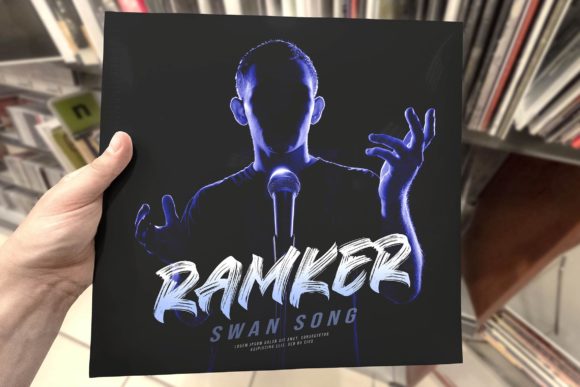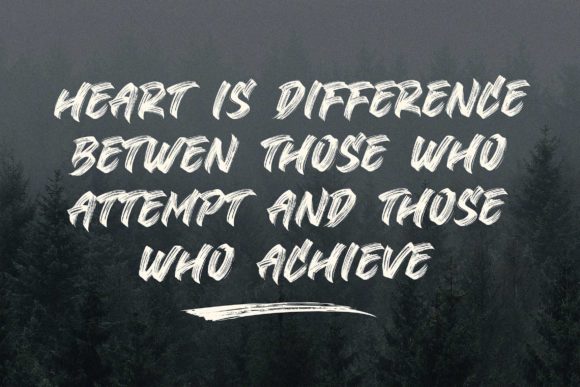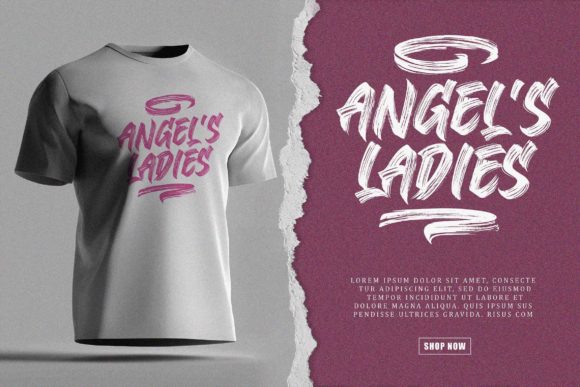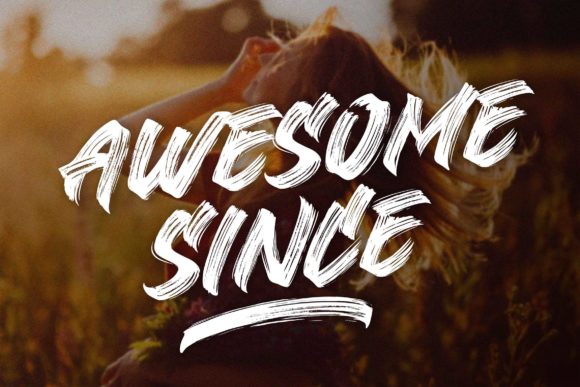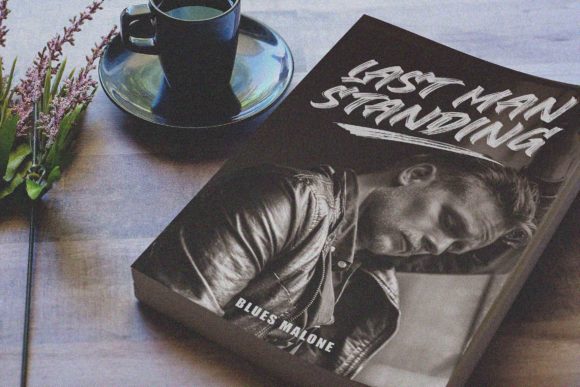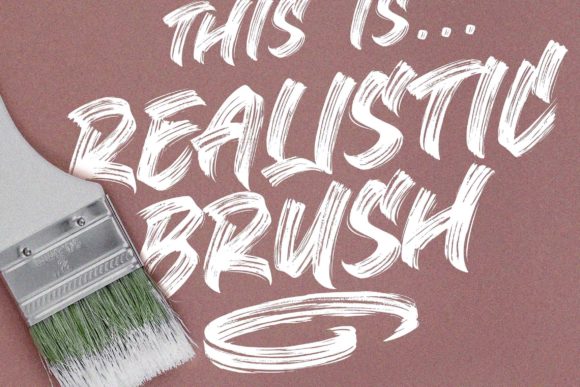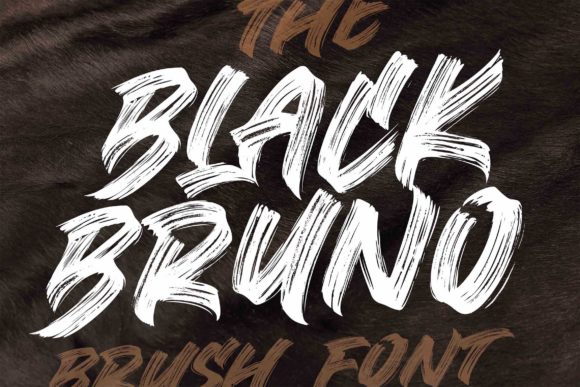
The Magic of Black Bruno Font: A Designer’s New Best Friend
I’ll never forget the moment I stumbled upon the Black Bruno font. I was working on a DIY project for a client, and I was struggling to find the perfect display font that would bring the whole design together. The project was a handmade craft tutorial, and I wanted a font that would not only look great but also feel authentic and endearing. That’s when I discovered Black Bruno, and it was love at first sight! 💕
So, what makes Black Bruno so special? Here are a few things that I absolutely love about this font:
- ✨ Unique and authentic look: Black Bruno results from a stunning pairing of a brush pen and pencil, making it look incredibly endearing and authentic.
- ✅ Highly versatile: This font is perfect for a wide range of DIY projects, from handmade craft tutorials to social media graphics and more.
- 💫 OpenType features: Black Bruno comes with a range of OpenType features, including glyphs and stylistic alternates, that allow you to customize your text and make it truly unique.
Of course, no font is perfect, and there are a few small quirks to watch out for:
- ⚠️ Limited character set: Black Bruno has a slightly limited character set, which can make it tricky to use for longer blocks of text.
- 🤔 Kerning issues: As with any font, you may need to adjust the kerning to get the text looking just right.
The Story Behind Black Bruno
Black Bruno was designed by a talented font designer who wanted to create a font that would capture the essence of handmade crafts and DIY projects. The designer was inspired by the imperfections and uniqueness of hand-drawn letters and set out to create a font that would bring that same sense of authenticity to digital designs.
| Font Name | Black Bruno Font |
| Author | Subectype |
| What is the best way to use Black Bruno in my designs? | Black Bruno is perfect for DIY projects, handmade craft tutorials, and social media graphics. Experiment with different OpenType features and glyphs to customize your text. |
| Is Black Bruno available in different weights or styles? | Currently, Black Bruno is only available in one weight. However, the designer may release additional weights or styles in the future. |